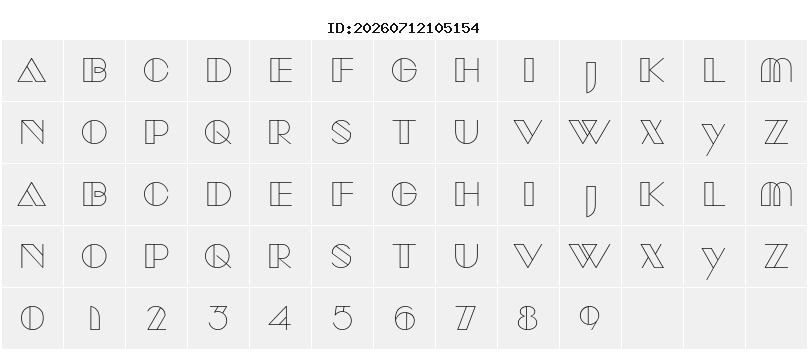
Manbow Clear Preview
• Font Name: Manbow Clear
• Designer: Ray Larabie
About Manbow Clear.ttf
Manbow Clear.ttf is a modern, elegant sans-serif font designed for ultimate readability and visual harmony. Perfect for branding, headlines, web design, and print materials.